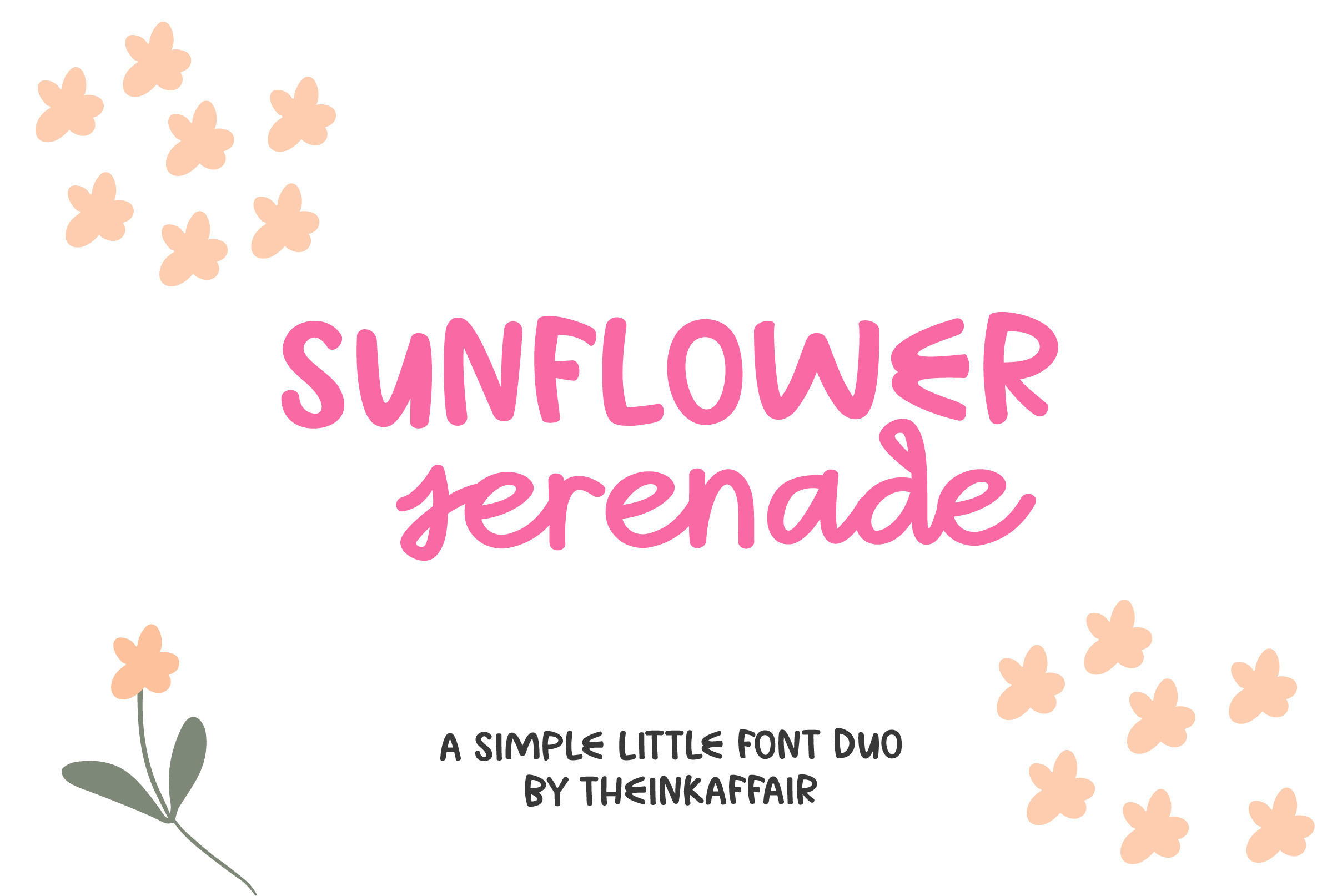
Summer Serenade Font Duo
Welcome Summer Serenade Font Duo, a fun and delicious handwriting script font complimented with a beautiful notes-y sans serif font. Summer Serenade Font Duo is perfect for all things design! From Wedding invitations, social media posts, to greeting cards, blogs, branding, logos, apparel design, typography, and so much more!